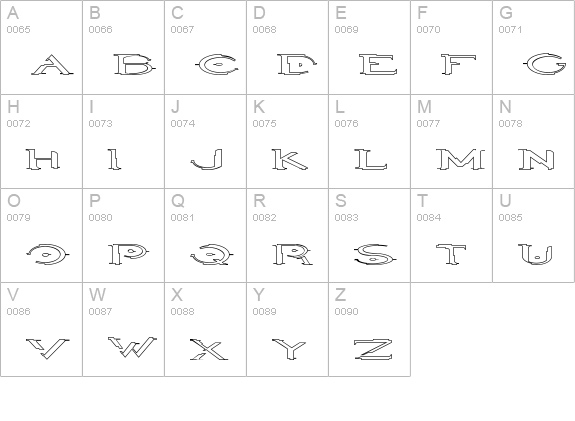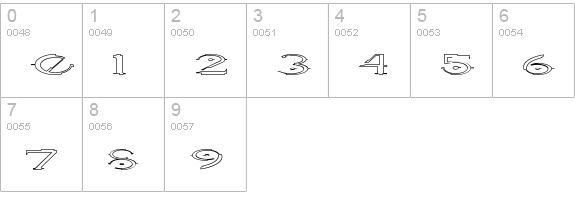
Halo OutlineRegular Font Details
Introducing the remarkable Halo OutlineRegular font, a stunning typeface that combines elegance and modernity. With its sleek and refined lines, this font is perfect for adding a touch of sophistication to any design project. The Halo OutlineRegular font features a unique outline style, giving it a distinct and memorable appearance. Its clean and sharp edges create a sense of precision and professionalism, making it ideal for both print and digital applications. What sets the Halo OutlineRegular font apart is not only its impeccable design, but also the fact that it is available for free. Yes, you read that right! This incredible font can be downloaded at no cost from FontsMarket.com. This means that you can enhance your creative endeavors without breaking the bank. Whether you're designing a logo, creating eye-catching headlines, or even crafting a stylish invitation, the Halo OutlineRegular font will elevate your work to new heights. Its versatility allows it to be used in various contexts, from corporate presentations to personal projects. The possibilities are endless. Don't miss out on this opportunity to access a high-quality font at no charge. Download the Halo OutlineRegular font today from FontsMarket.com and experience the seamless blend of elegance and modernity that it offers. Your designs will thank you for it.